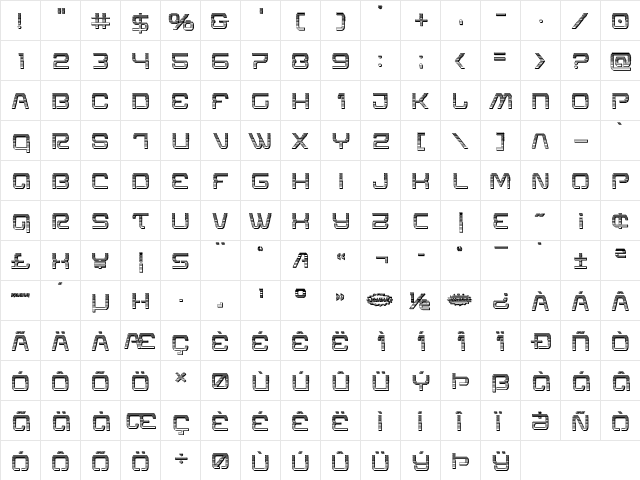
Miracle Mercury Chrome Regular
Design Context for Miracle Mercury Chrome Typeface
Miracle Mercury Chrome is a composed and adaptable typeface that performs quietly and consistently across a wide range of design contexts.
Pro Tip: Use Miracle Mercury Chrome in both headline and body roles to test its range before committing to a single application.